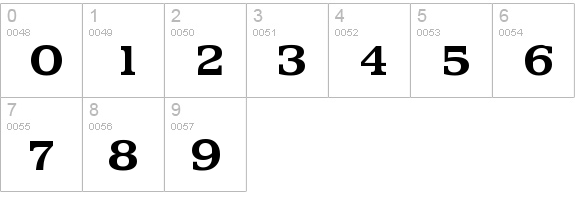
PenthouseSerial-Bold Font Details
PenthouseSerial-Bold is a strong, high-contrast variant in the PenthouseSerial typeface family \xE2\x80\x94 well suited to headlines, attention-grabbing titles, and strong calls-to-action.
PenthouseSerial-Bold is a sleek and modern font that exudes sophistication and elegance. Its bold and striking appearance makes it perfect for headlines, titles, and branding materials. This font commands attention and leaves a lasting impression with its unique style. What makes PenthouseSerial-Bold even more appealing is that it is available for free download at FontsMarket.com. Now you can elevate your design projects without breaking the bank. Don't miss out on this opportunity to enhance your creations with this stunning font. Download PenthouseSerial-Bold today and add a touch of luxury to your designs.